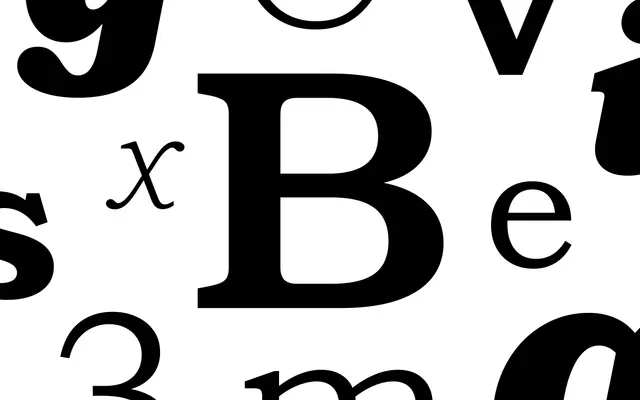
Bookman Recast
Dalton Maag · Emanuela Conidi, Robert Pratley · 2025
Bookman Recast specimen from Dalton Maag
A 21st century recast of Bookman by Emanuela Conidi and Robert Pratley, with a Weight and Italic variable font from Hairline to Black.
Dalton Maag's Bookman Recast is a Bookman revival by Emanuela Conidi and Robert Pratley, designed and developed 2025. The variable font runs Hairline to Black with matching italics on an Italic axis, with alternate J and Q OpenType features. Latin coverage supports over 790 languages, and the page frames it as expressive in display and warm and friendly in text.
Dalton Maag describes Bookman Recast as a 21st century revival of a 19th century classic, with a wide legible design that is expressive in display and warm and friendly in text.